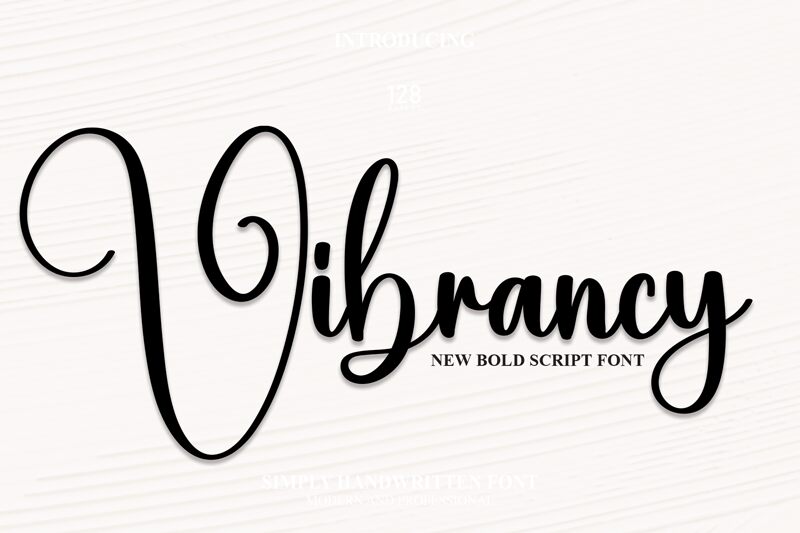
Vibrancy
Vibrancy, a captivating calligraphy font by Scratchones, effortlessly combines elegance with a touch of playfulness.
Its semi-light weight lends grace and finesse to any project, making it perfect for wedding invitations and romantic stationery. Embrace the enchanting curves and flourishes of Vibrancy to add sophistication to fashion magazines or create eye-catching logos for luxury brands. With its versatile and expressive nature, this font is also well-suited for artistic portfolios, inspirational quotes on social media graphics, and even modern website designs seeking a touch of uniqueness.